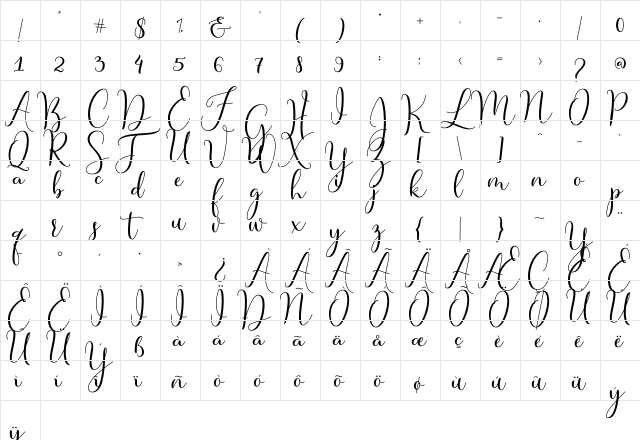
Master Script Regular
Regular · WDfont Captain Jack ·
DesignerCaptain Jack
Design Context for Master Script Typeface
Master Script brings a calligraphic fluidity to the page — its connecting strokes and expressive curves give it an unmistakably human quality.